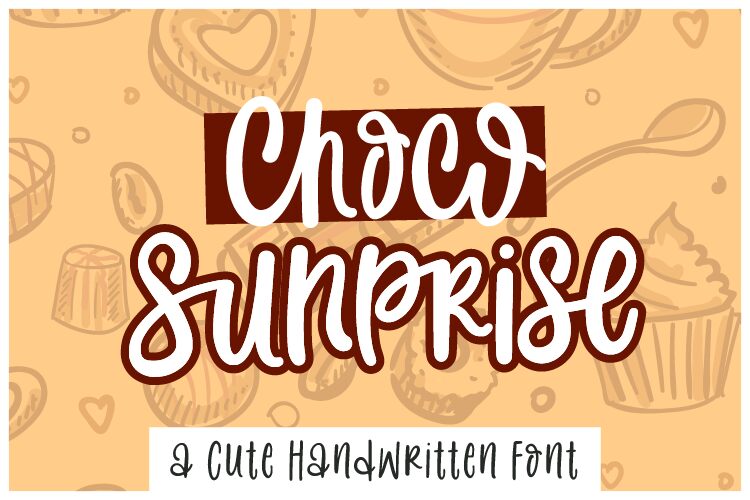
Choco Sunprise
Introducing Choco Sunprise, the adorable handwritten font designed by Ghazi Humam Fauzan. With its condensed width, this font is perfect for creating eye-catching titles and headlines in all sorts of projects. Its cute and playful style will make your designs stand out, whether you're working on children's books, greeting cards, or even website banners. Add a touch of whimsy to your next project with Choco Sunprise - the perfect choice for all things fun and lighthearted.